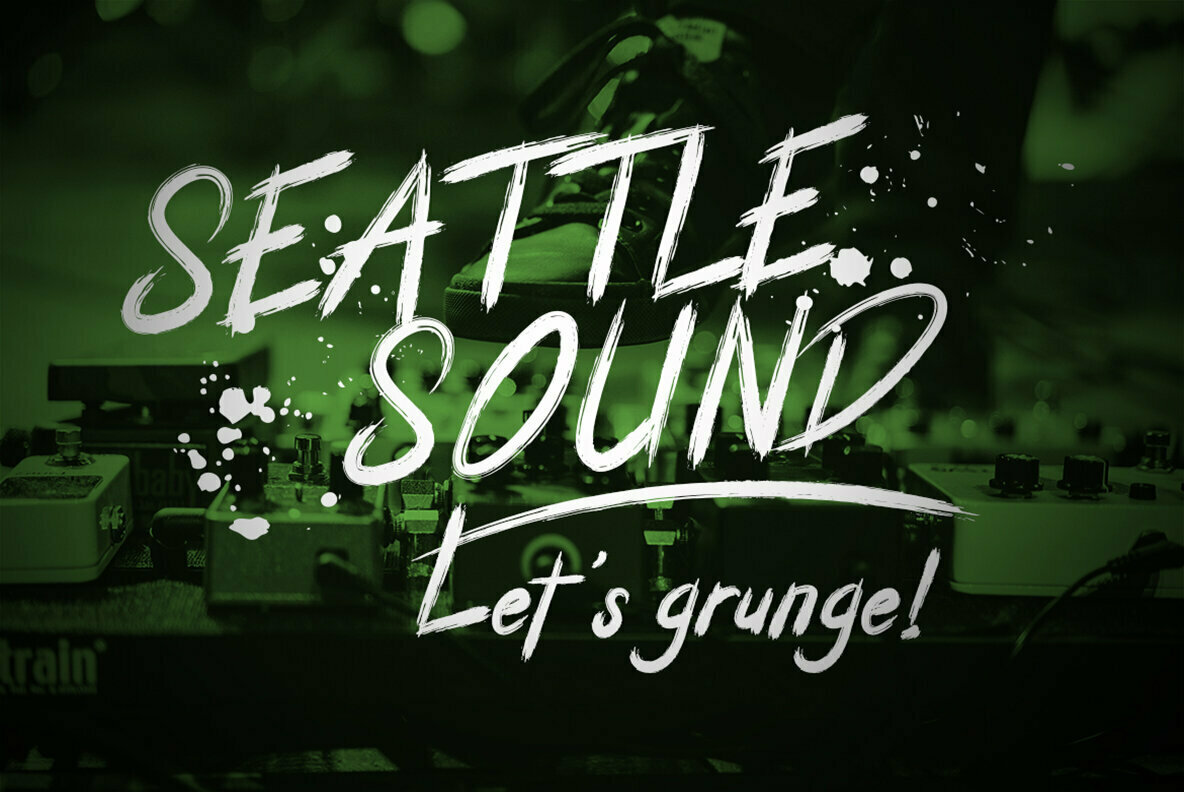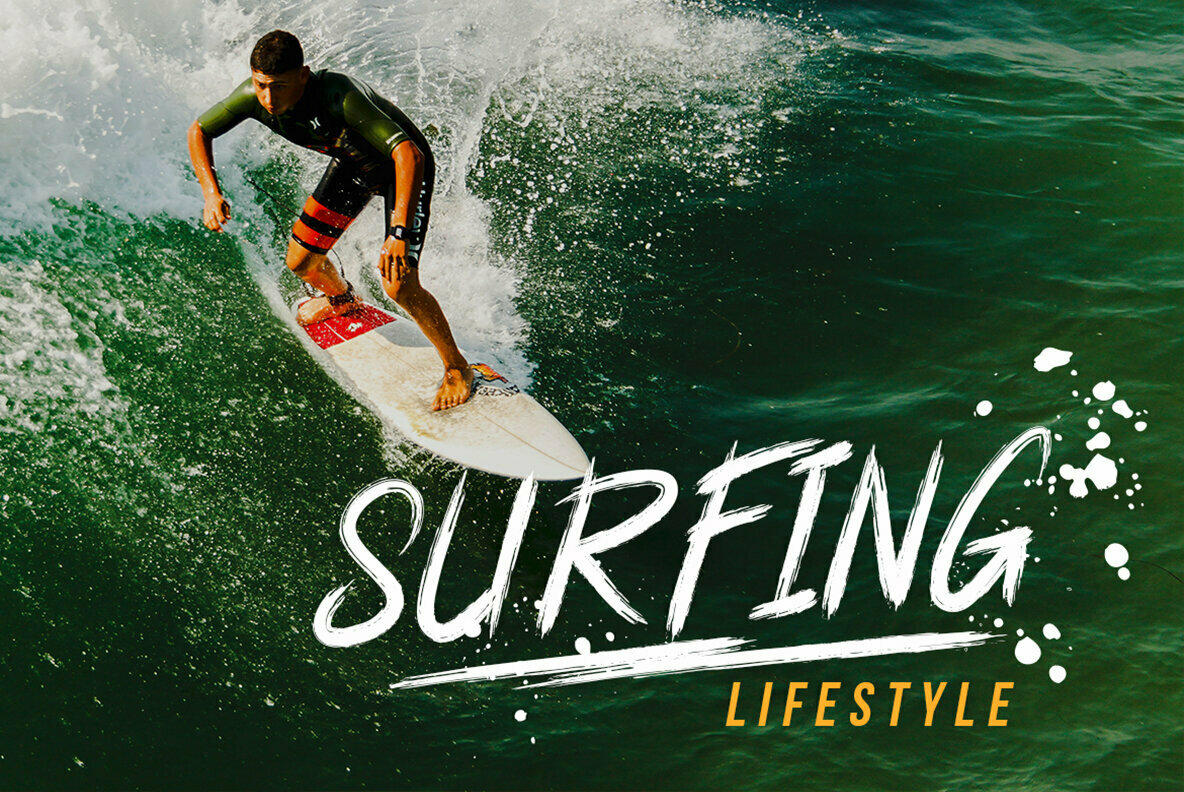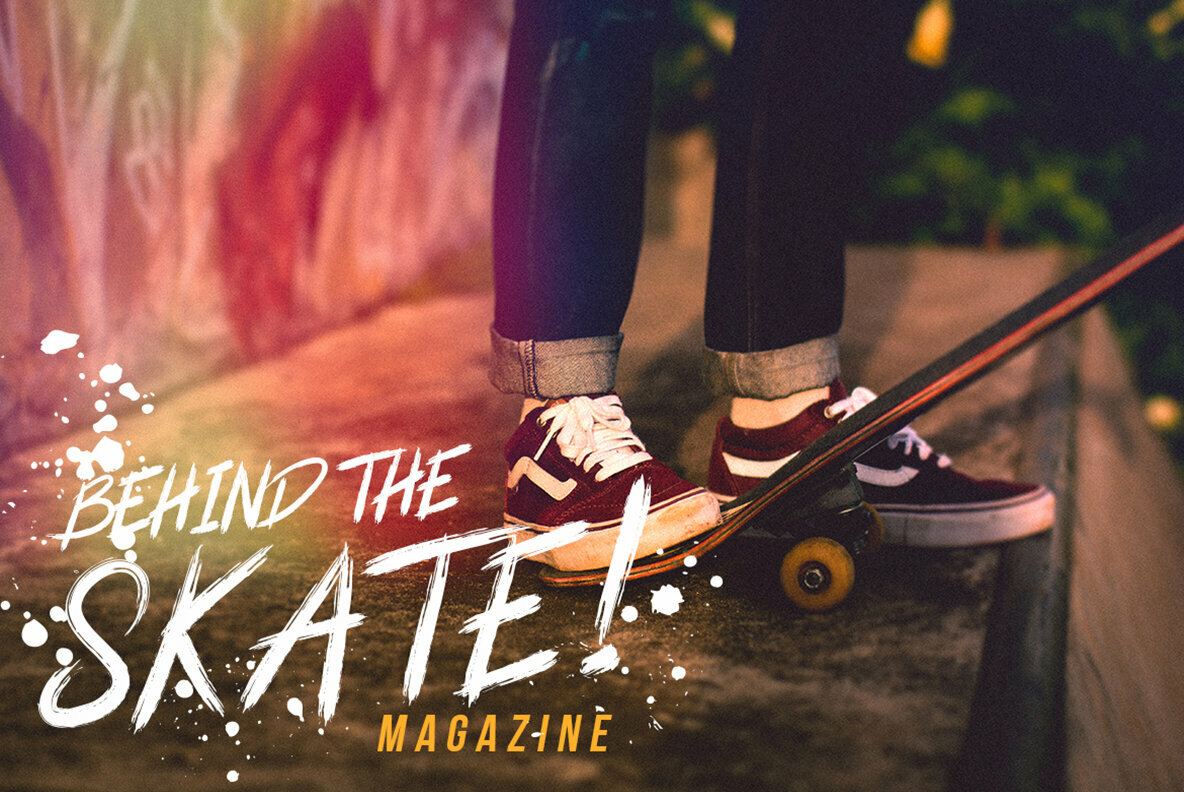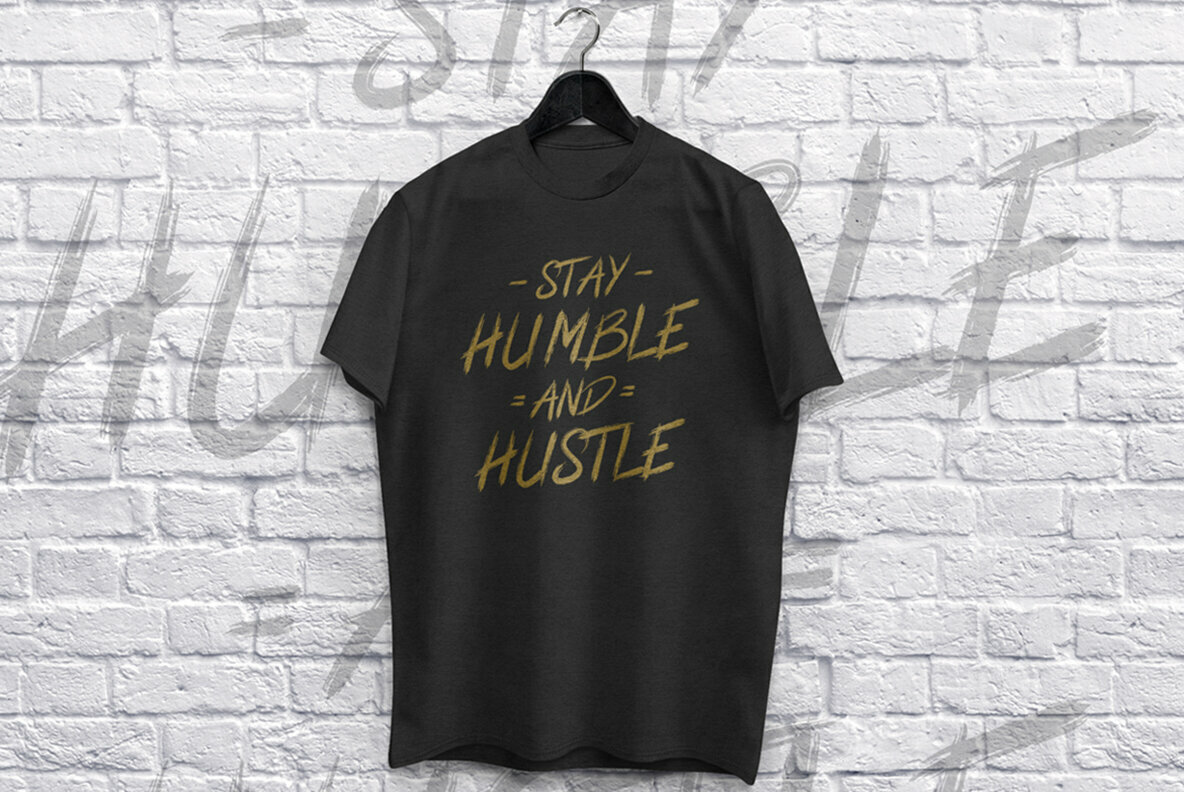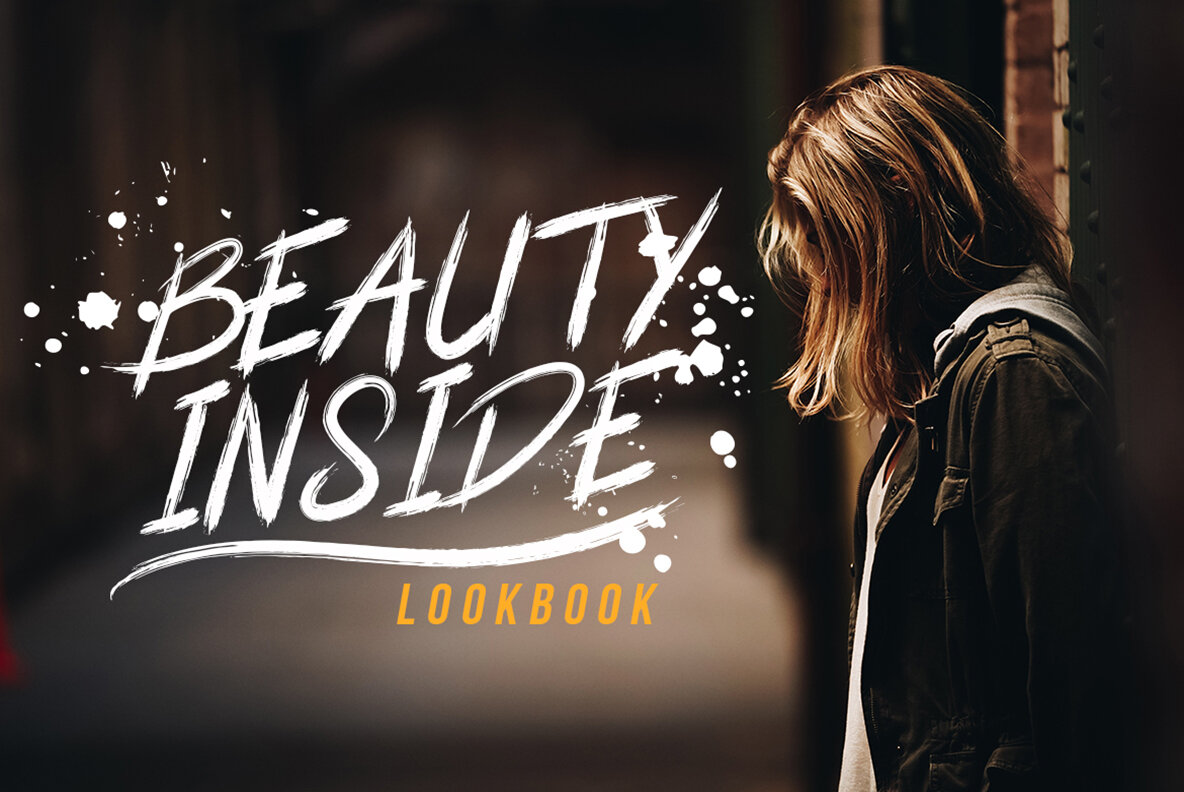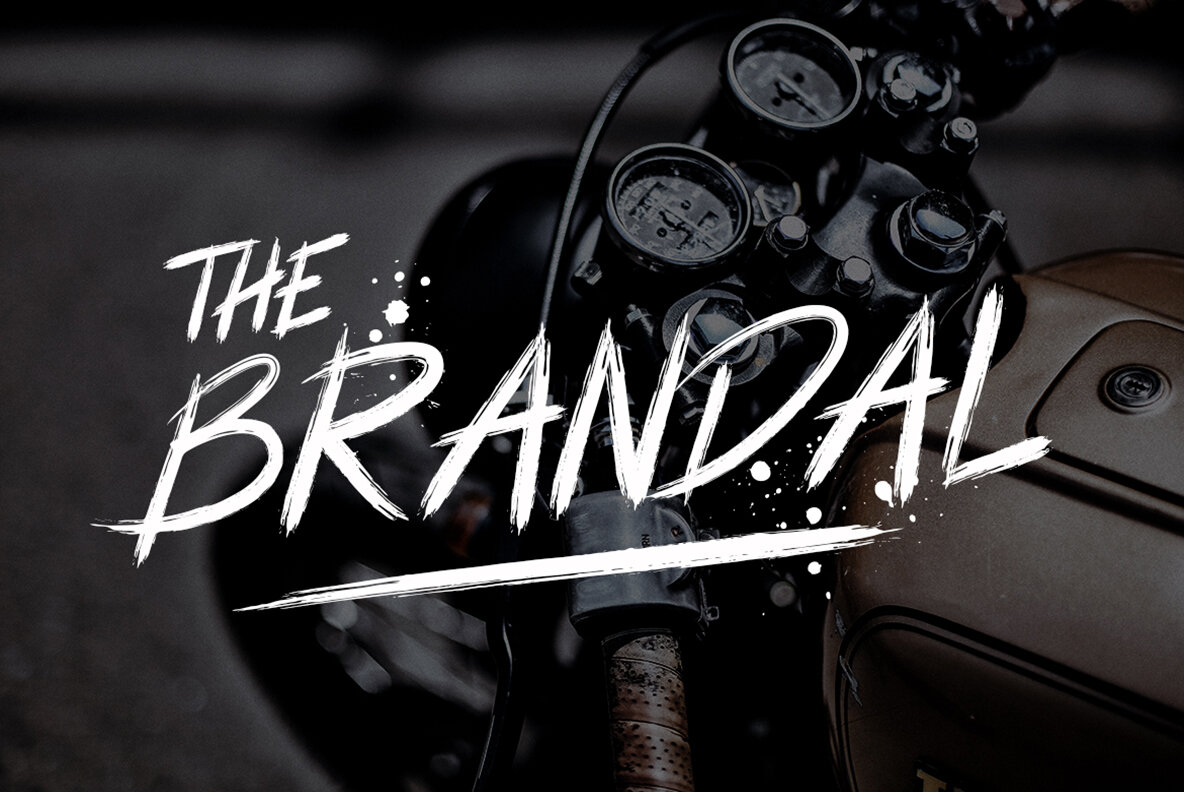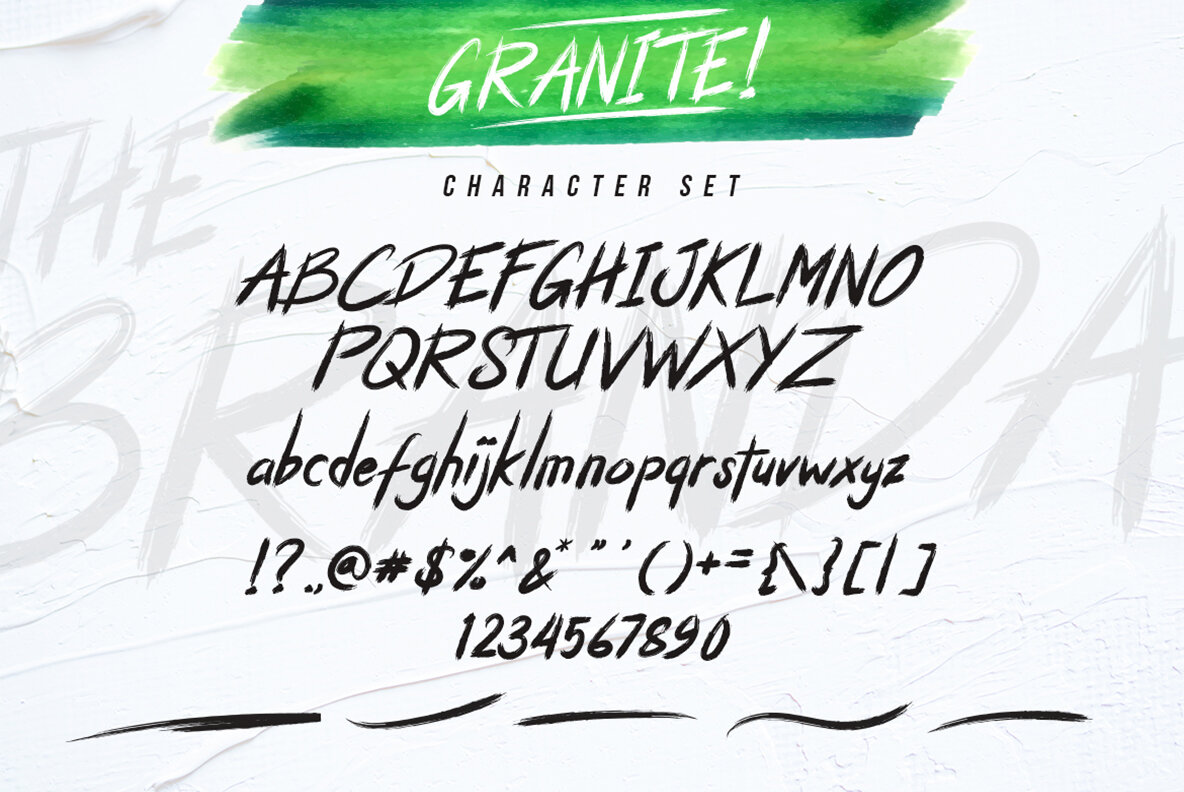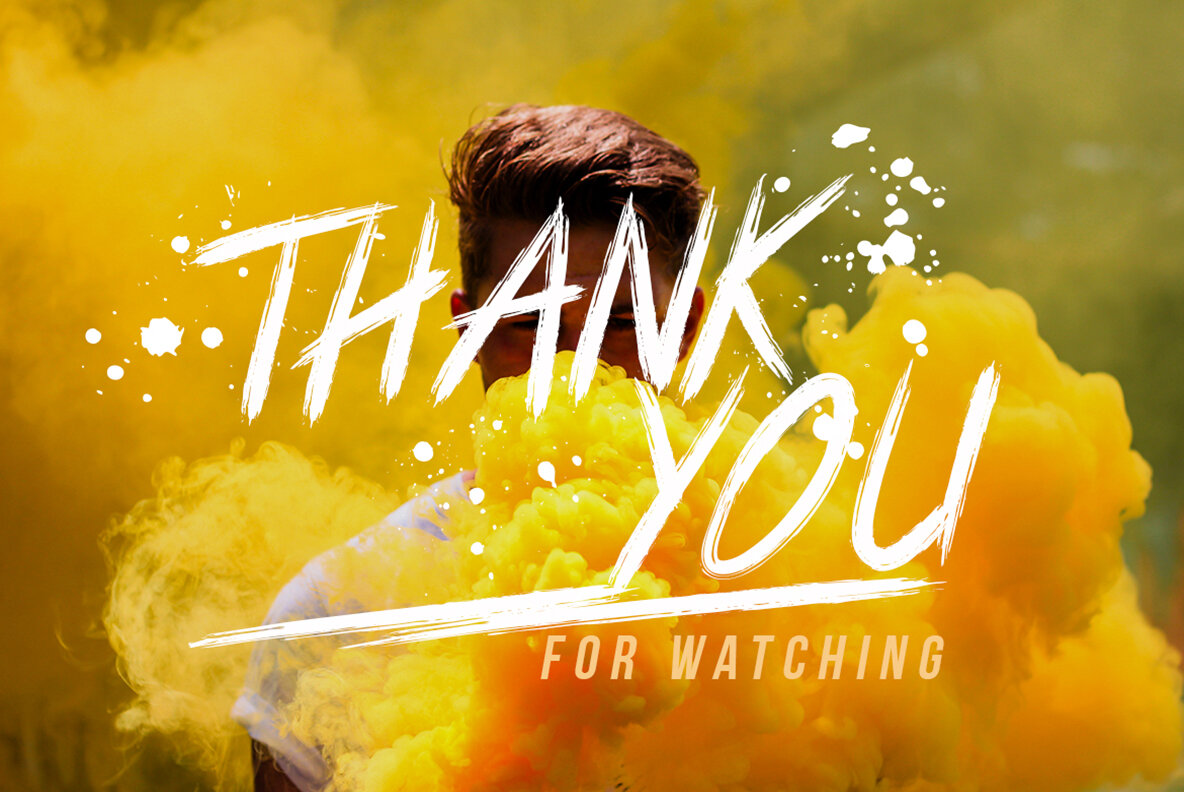
Granite Brush Font
Granite
Granite Swashes
Granite is handmade authentic font brush with stylish street lifestyle and looks like extreme sport style usage.